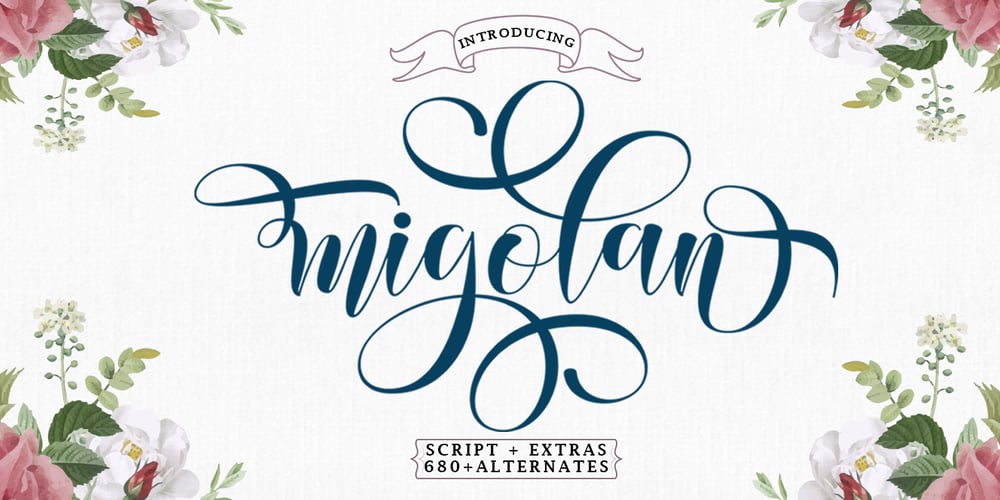
Migolan Script
Migolan Script font
Migolan Script Font Family was designed by Zaki Muhammad and published by madjack.font. Migolan Script contains 2 styles and family package options. Migolan is a sweet and soft handwritten script font. Fall in love with an authentic feel and use it to create beautiful wedding invitations, beautiful artwork, interesting social media posts, and funny greeting cards.